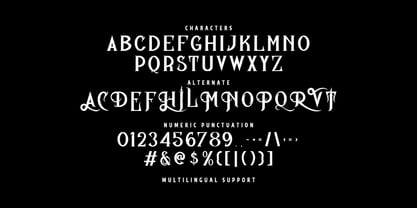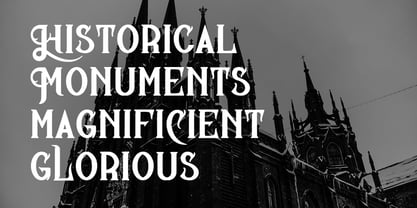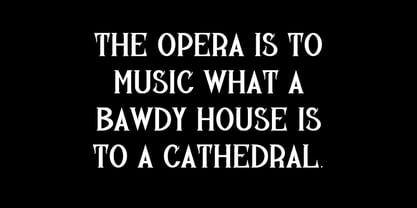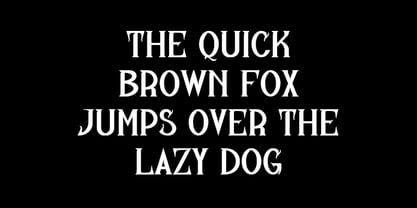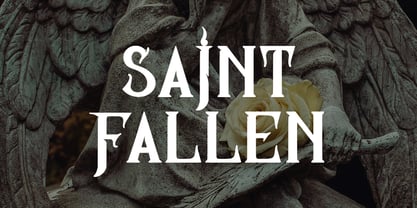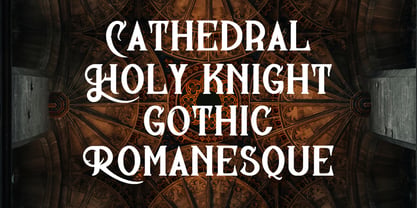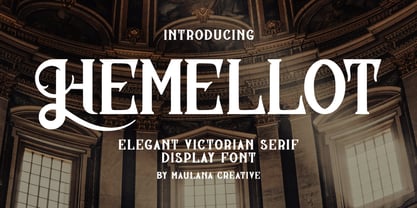
MC Hemellot
by Maulana Creative
The MC Hemellot Font Family was designed by Gilang Maulana and published by Maulana Creative. MC Hemellot contains 1 styles. More about this family
Elevate your design projects with Hemellot, a masterfully crafted display serif font that blends classical Victorian aesthetics with a bold, modern touch. Designed by Maulana Creative, this typeface features unique swashes and sharp serifs that command attention and exude a sense of luxury and timeless heritage. Hemellot is perfect for high-end branding, vintage-inspired logos, editorial layouts, book covers, and sophisticated wedding invitations. Its strong character and intricate details make it an ideal choice for designers looking to create a powerful visual impact. Key Features: - Unique Stylistic Alternates: Adds a custom, hand-lettered feel to your headlines. - High Contrast: Perfect for large-scale displays and titles. - Multilingual Support: Ready for global design applications. - Versatile Use: Ideal for branding, posters, and social media graphics.
Designers: Gilang Maulana
Foundry: Maulana Creative